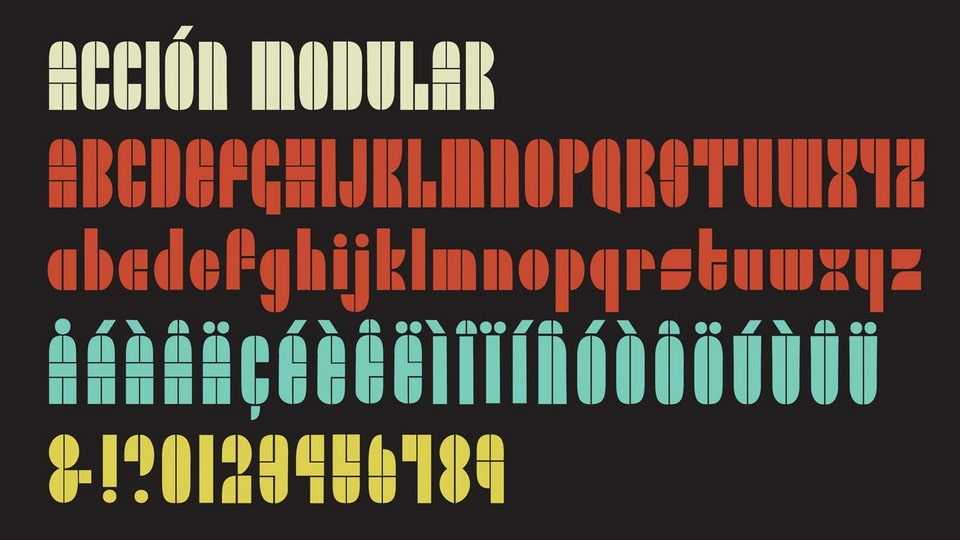
Download Acción Modular font, a display typeface that comes from the title font of the Argentinian magazine Hombre de America: Fuerte y Libre.
Designer: Justseeds Open Type Project